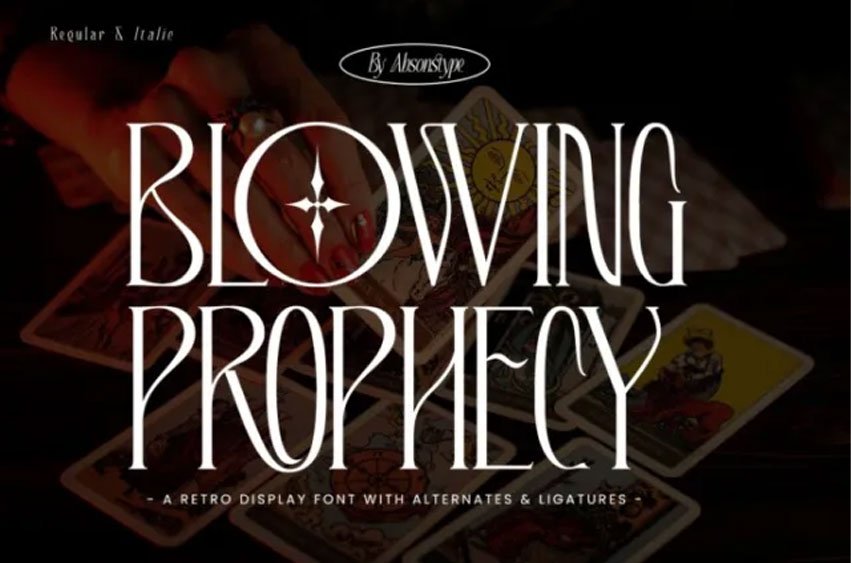
Blowing Prophecy Font Retro Display Font by Absonstype. Step into the mystic and enchanting world of Blowing Prophecy, a retro display font that blends timeless elegance with occult-inspired aesthetics. Designed to captivate and intrigue, this typeface features elongated letterforms, dramatic curves, and magical accents that evoke the mysterious charm of tarot readings and vintage esoterica.
Whether you’re designing posters, book covers, branding, or social media graphics, Blowing Prophecy adds a bold and magical personality to your projects.